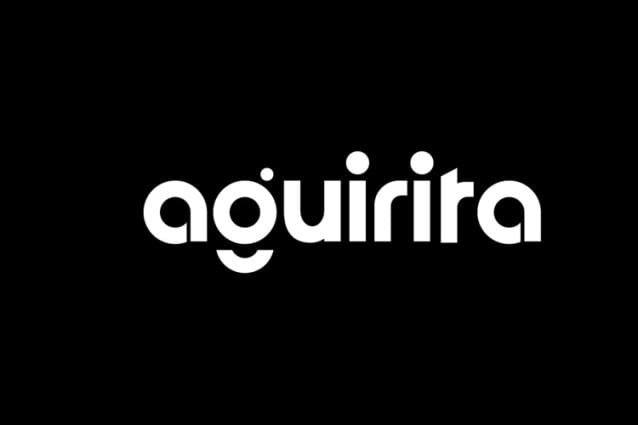
Aguarita Font
Aguarita Font is a bold and authentic display font. This font is perfect for any branding project such as logos, t-shirt printing, creative products, and more. extraordinary in a variety of contexts.